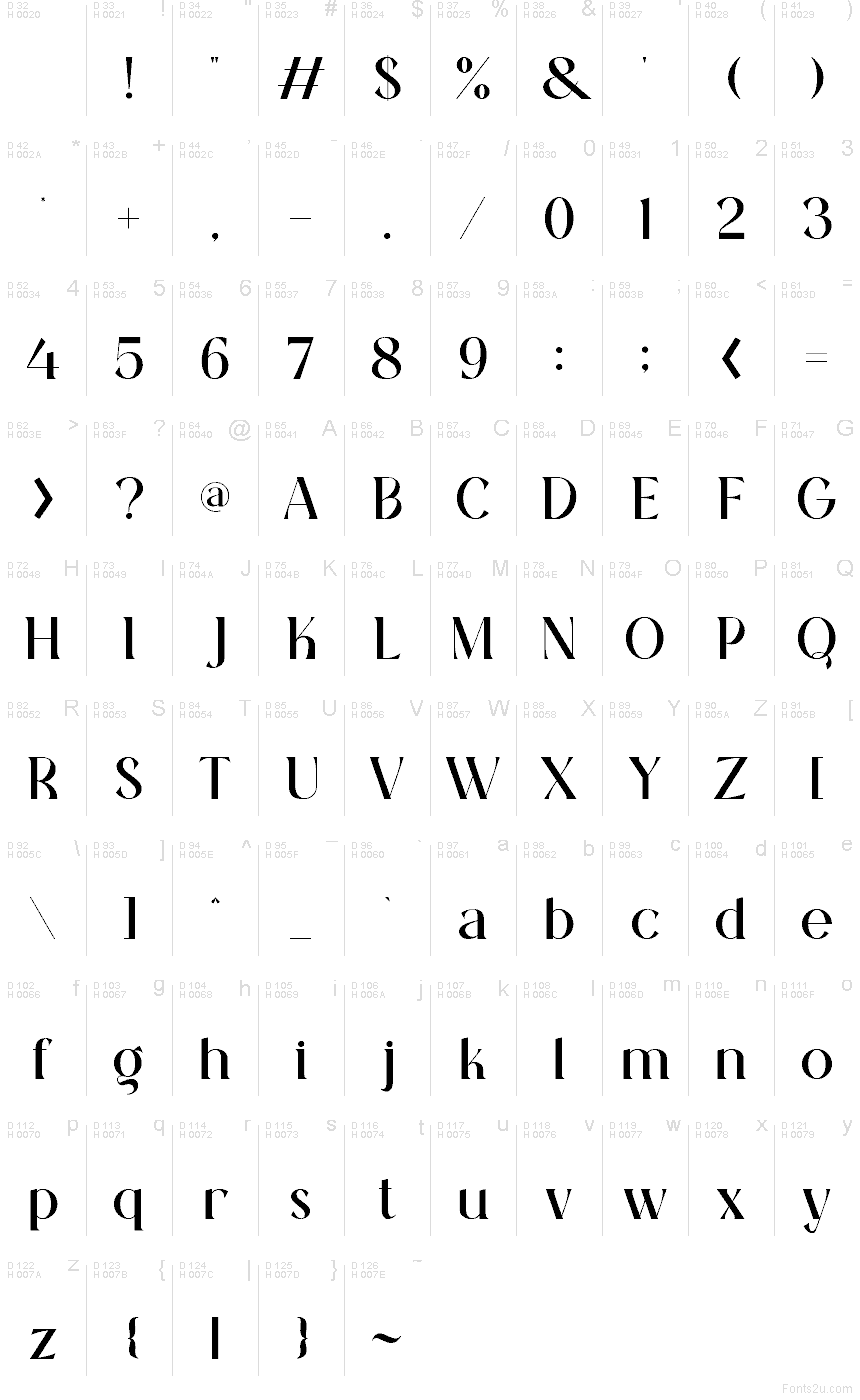
Nulaye
Nulaye font by ErmediaStudio is a free serif font with sculpted, inky letterforms that feel both sharp and fluid at once. Tall, elegant strokes meet wide, velvety curves, giving each word a sense of runway poise and editorial drama. The spacing is tight and intentional, so headlines look rich and confident without needing extra tweaking.
Using Nulaye, you can instantly elevate fashion branding, magazine covers, beauty packaging, posters, social media graphics, and bold hero banners. This free font shines when used large, where its sweeping shapes and clipped angles can really breathe. Pair Nulaye with a clean geometric sans for body text to keep layouts readable while letting its luxe serif personality command attention.